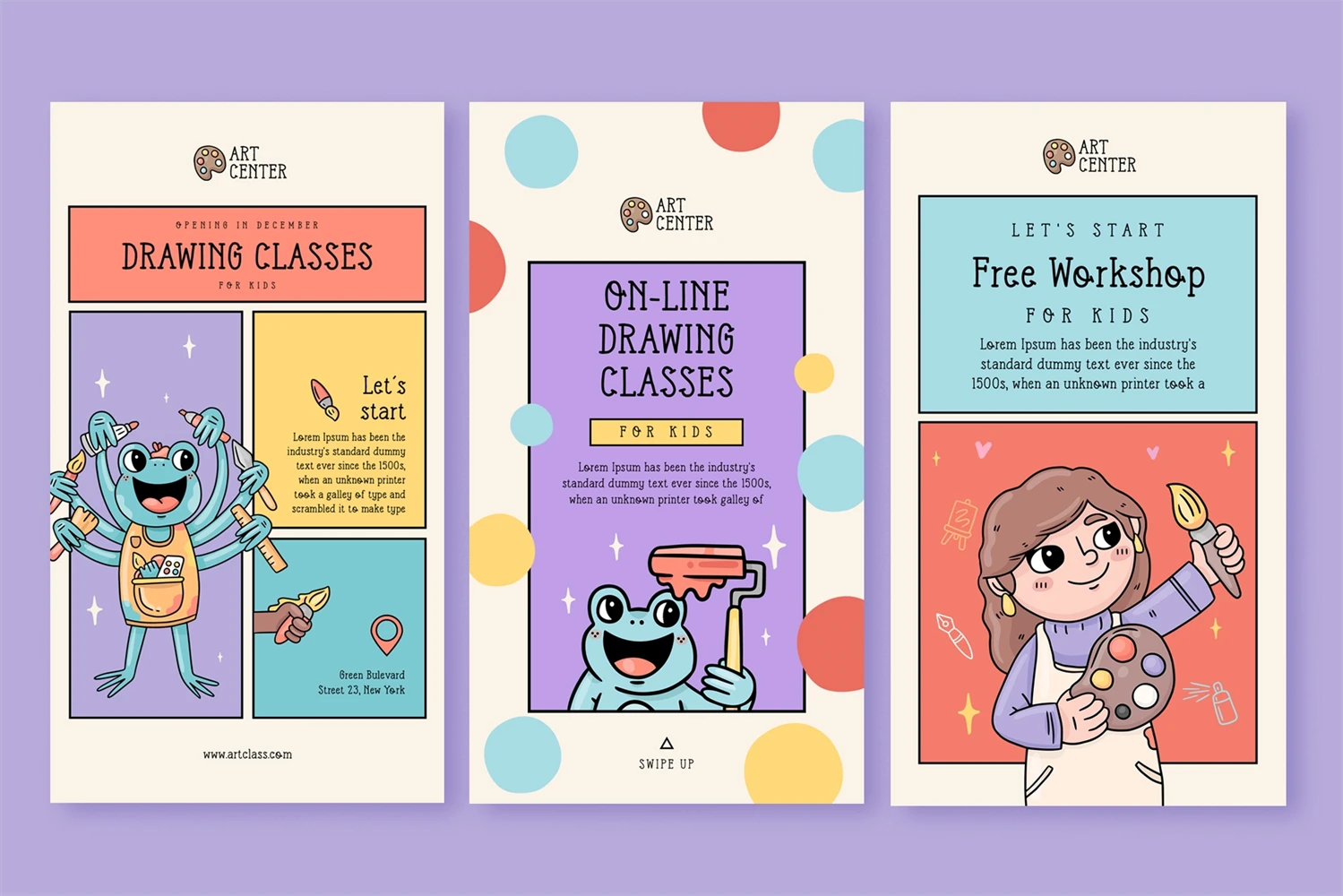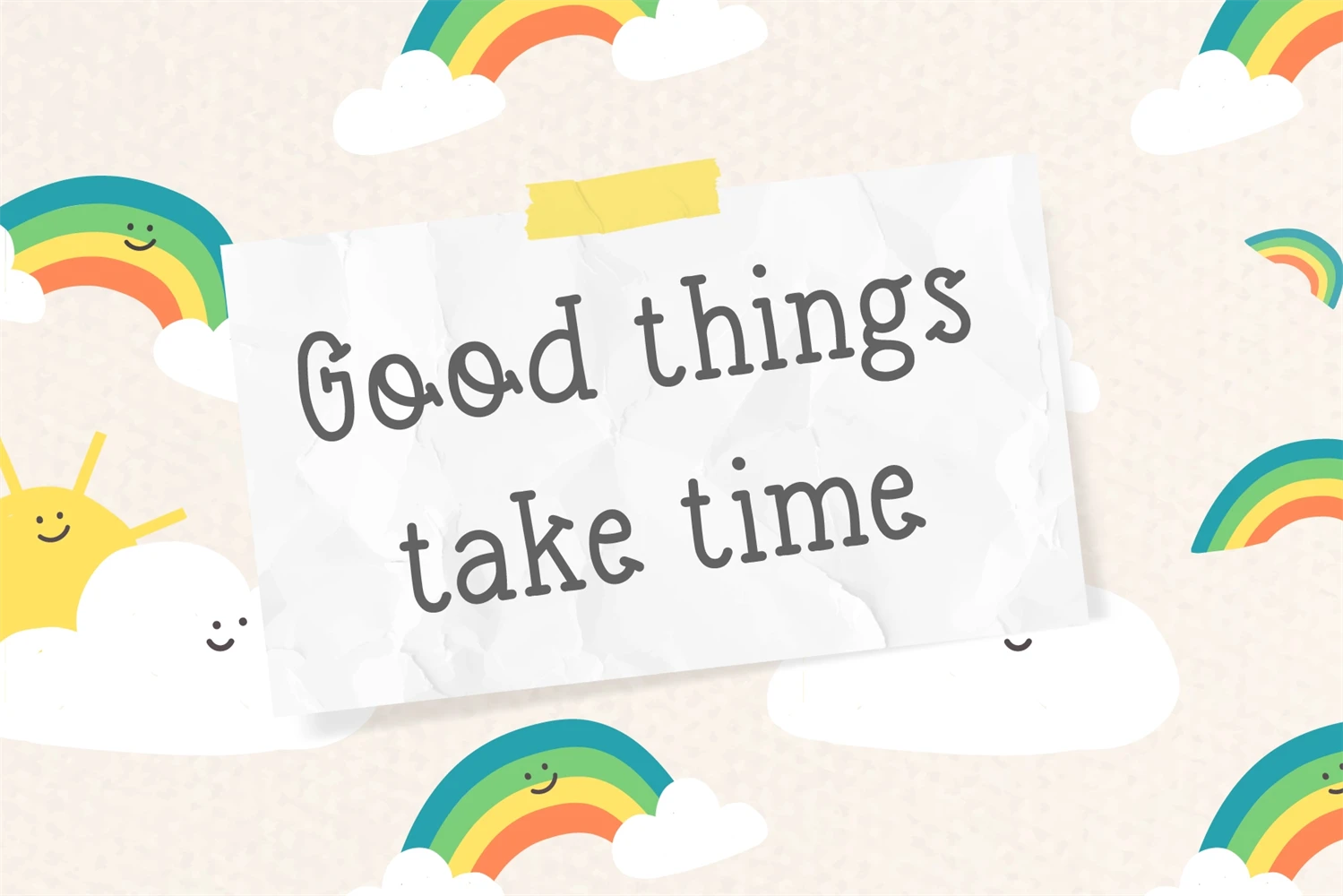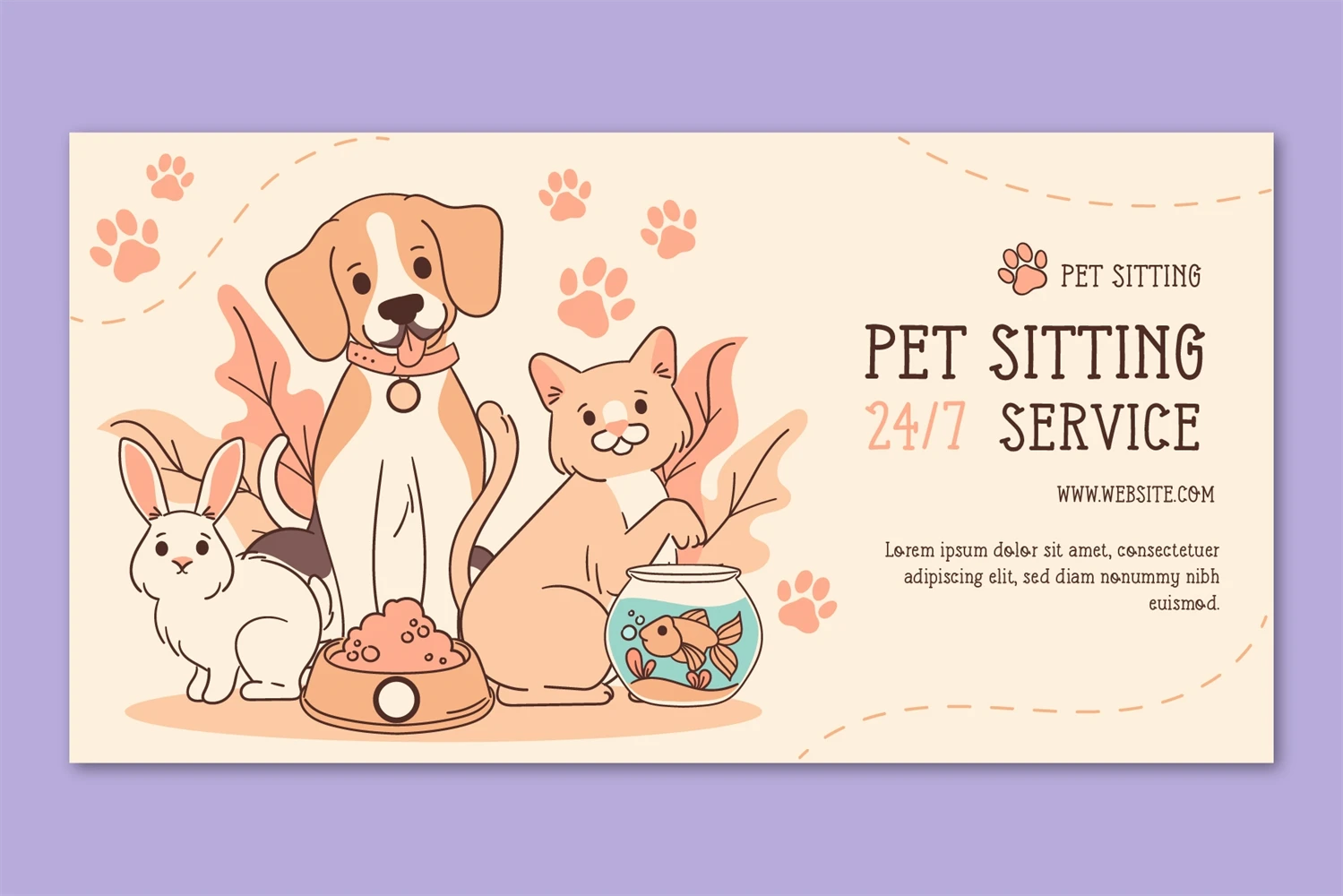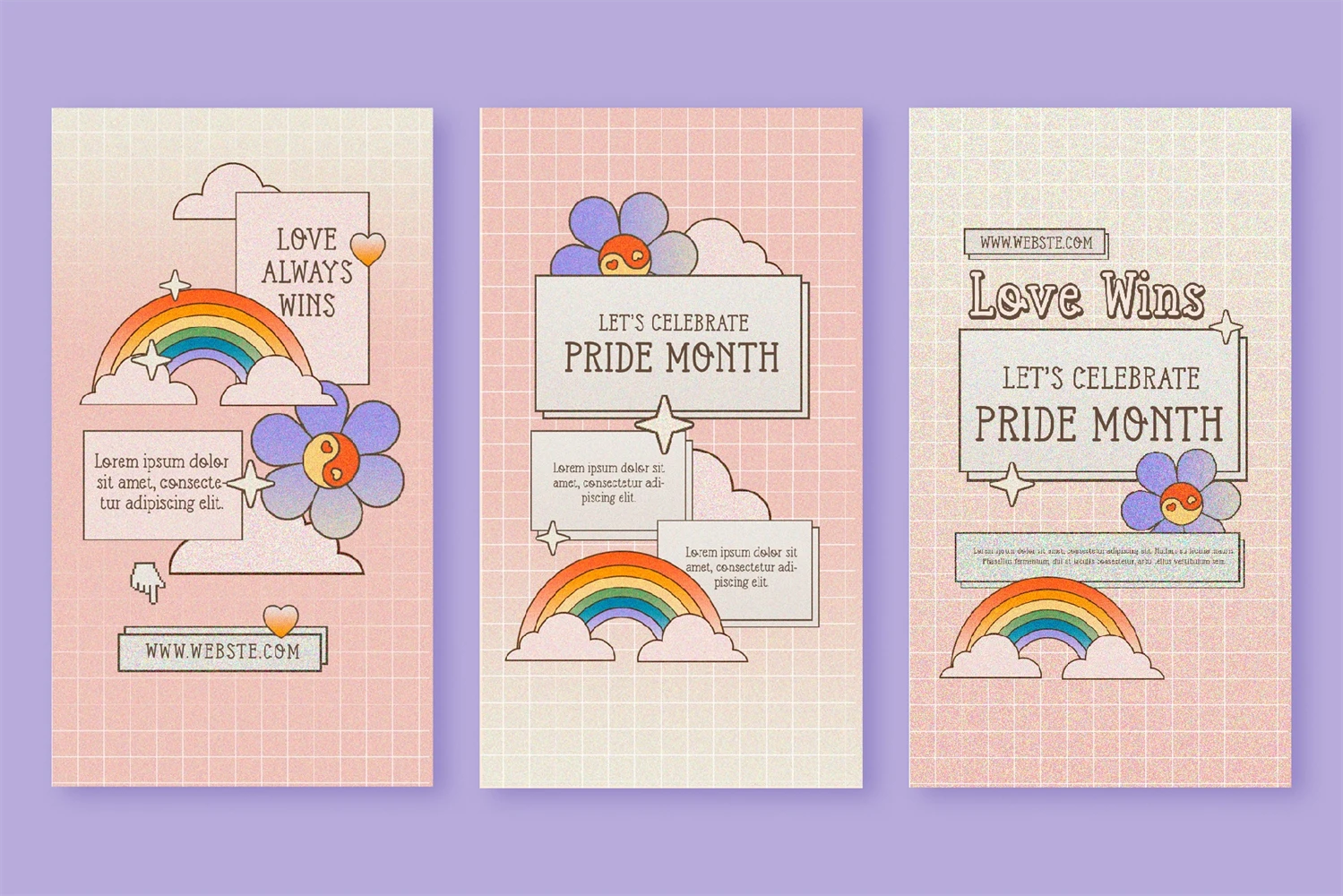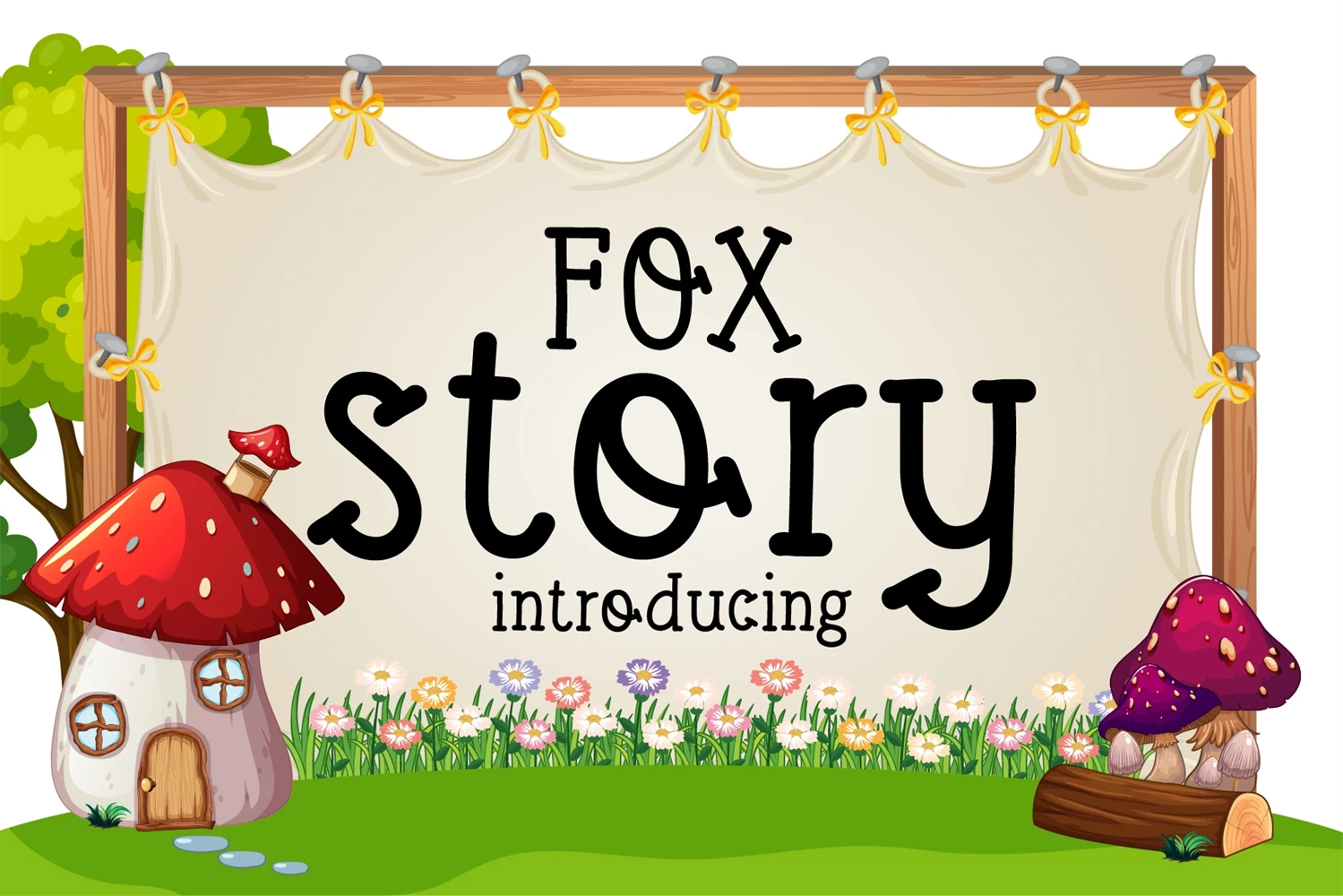
Fox Story Font is a charming handwritten serif typeface that exudes cuteness and simplicity. With its clean lines and easy-to-read design, this font is the perfect choice for a wide range of creative projects. Whether your creating inspirational quotes, captivating headings, engaging blogs, striking logos, or inviting invitations, Fox Story Font adds a delightful touch to any project. Its handwritten style brings a unique feel, adding warmth and character to your designs.